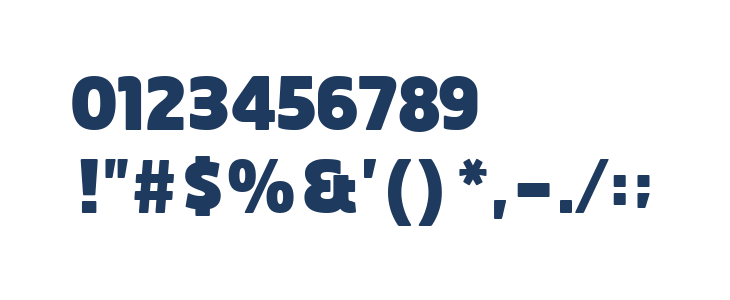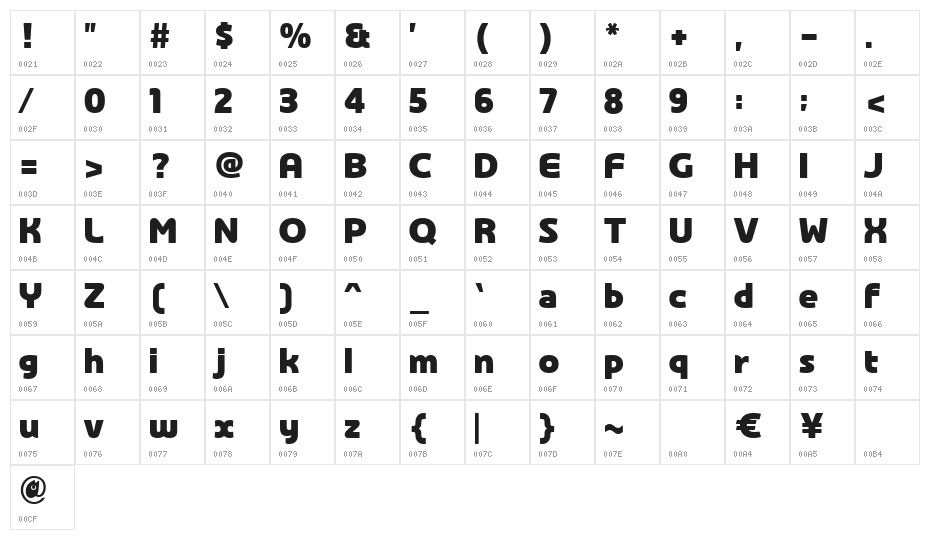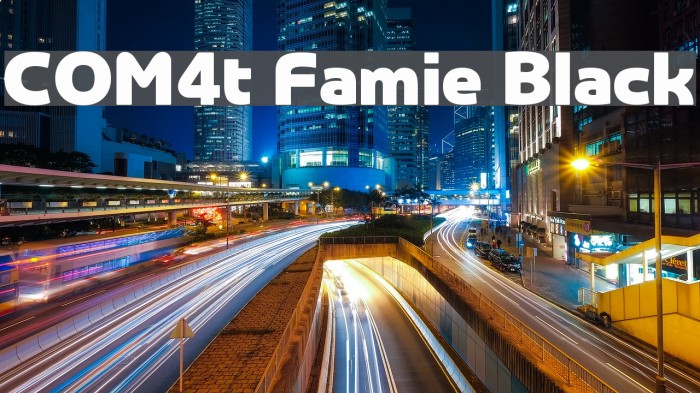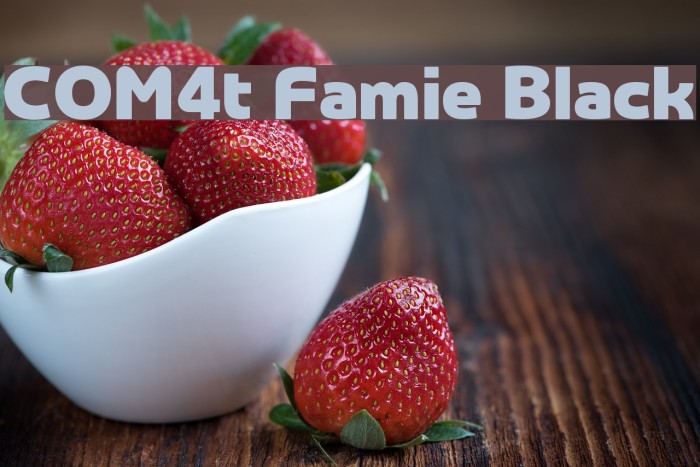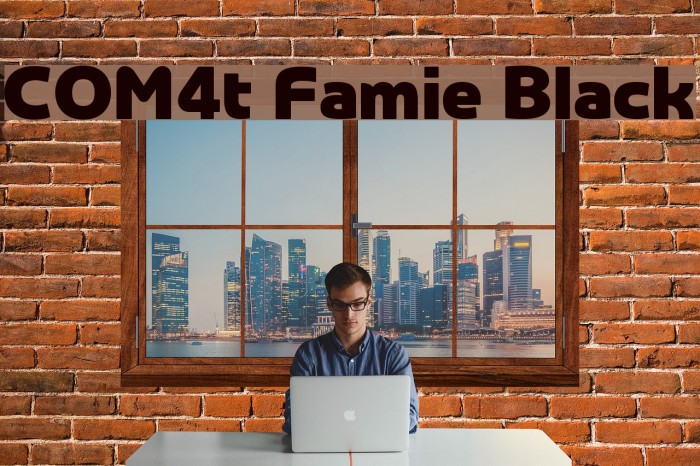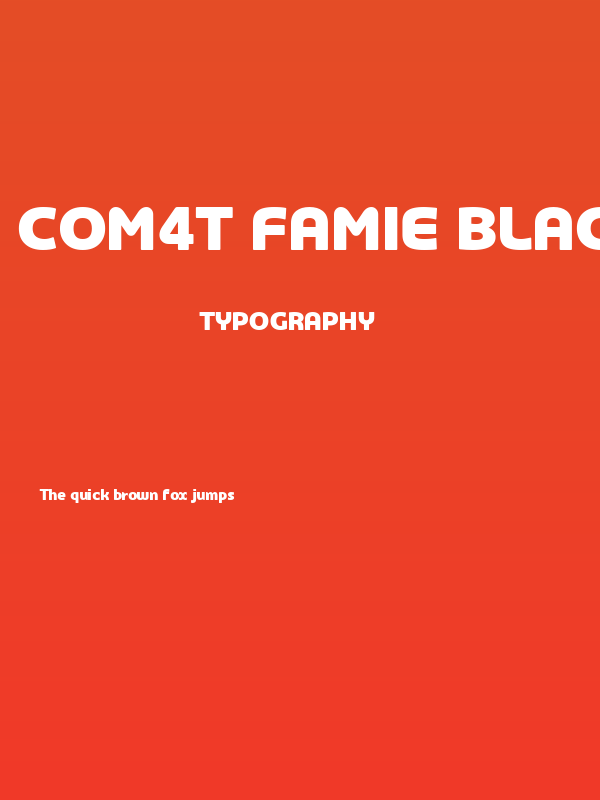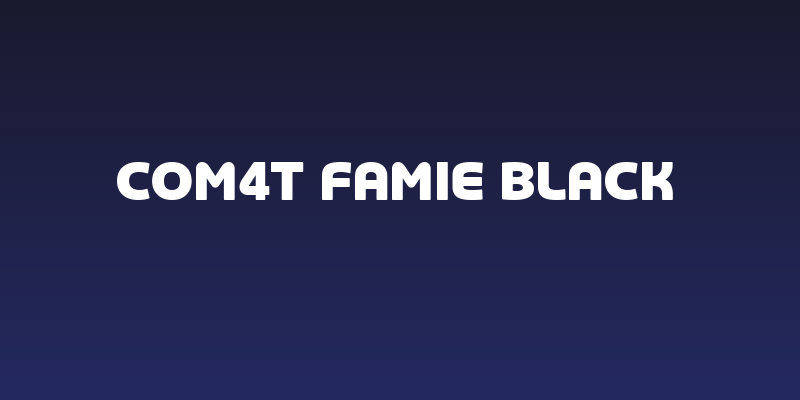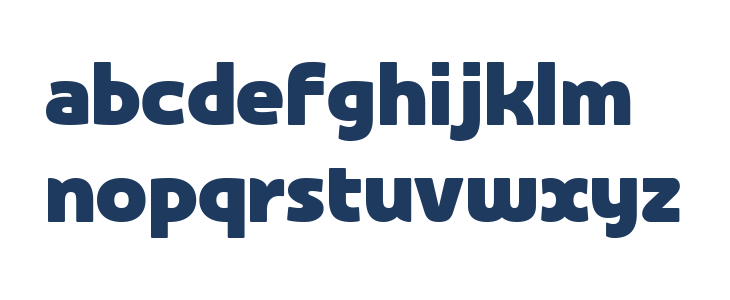
COM4t Famie Black Font
COM4t Famie Black Description
This font features bold, rounded characters with a strong presence, making it ideal for attention-grabbing designs. Its thick strokes and smooth curves give it a modern and friendly appearance. The uppercase and lowercase letters are well-balanced, and the numerals are clear and easily readable. Special characters are distinct and maintain the overall style, ensuring consistency across different uses. The font's robust design makes it suitable for a variety of applications where impact and readability are key.
| Proposed Projects | Ideal for branding, headlines, posters, and advertising materials where a strong visual impact is desired. |